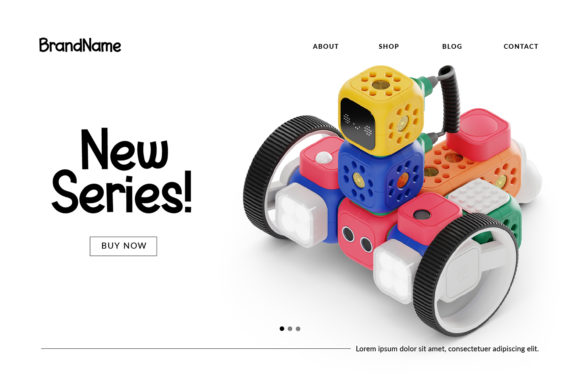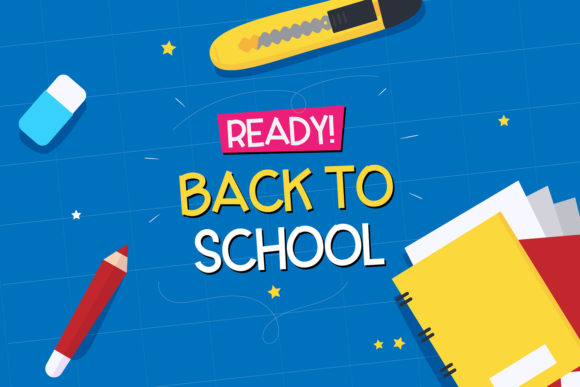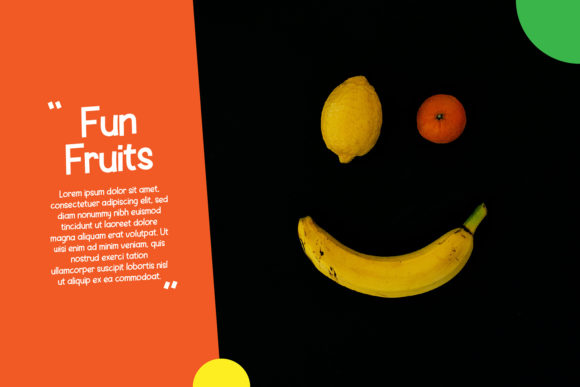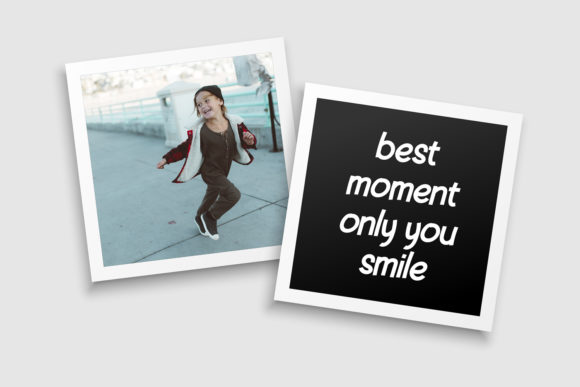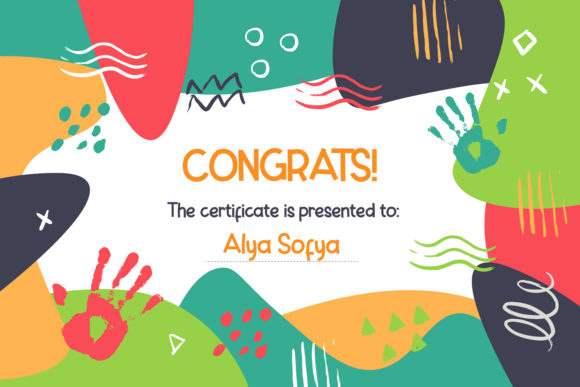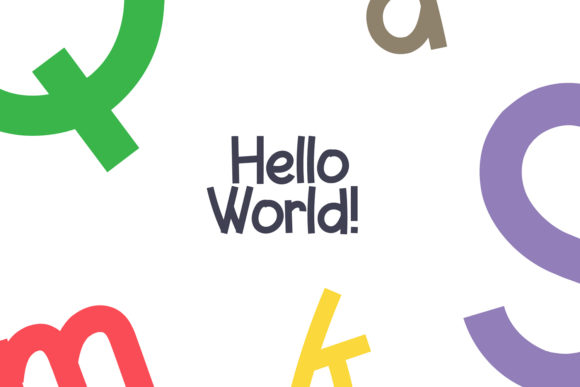
Introducing Happy Single Font: Elevate Your Designs with a Unique Display Font
Are you tired of using the same old fonts for your designs? Look no further! Happy Single Font is here to revolutionize your creative projects with its incredibly stylish and unique display font. This gorgeous font is perfect for designers and crafters who want to add a touch of elegance and sophistication to their work.
What Makes Happy Single Font Special?
Happy Single Font is a one-of-a-kind display font that boasts an interesting and distinctive look. Its stylish appearance is sure to capture the attention of your audience and leave a lasting impression. Whether you’re working on a logo, quote, invitation, business card, or PowerPoint presentation, Happy Single Font is the perfect choice.
With Happy Single Font, the design possibilities are endless! Here are some ideas to get you started:
- Logos: Create a memorable brand identity with a custom logo that showcases your business’s personality and style.
- Quotes: Add a touch of elegance to your inspirational quotes and make them stand out on social media or your website.
- Invitations: Make your special events unforgettable with beautifully designed invitations that feature Happy Single Font.
- Business Cards: Elevate your professional image with stylish business cards that showcase your brand’s unique personality.
- PowerPoint Presentations: Add a touch of sophistication to your presentations and engage your audience with Happy Single Font.
Why Choose Happy Single Font?
Here are just a few reasons why Happy Single Font stands out from the rest:
- Unique and Exclusive: Happy Single Font is a one-of-a-kind font that will set your designs apart from the crowd.
- High-Quality: This font is designed with high-quality craftsmanship, ensuring that it looks stunning in any design.
- Timeless: This font’s classic design ensures that it will remain stylish and relevant for years to come.
Tips for Using Happy Single Font
Here are some tips to help you get the most out of Happy Single Font:
- Experiment with Colors: Try pairing Happy Single Font with different colors to create unique and eye-catching designs.
- Play with Sizes: Experiment with different font sizes to add emphasis and create visual hierarchy in your designs.
- Mix and Match: Combine Happy Single Font with other fonts to create interesting and dynamic designs.
Happy Single Font is a game-changer for designers and crafters who want to elevate their designs with a unique and stylish display font. With its incredibly stylish look and endless design possibilities, this font is sure to become a favorite in your creative arsenal. So why wait? Fall in love with Happy Single Font and start creating gorgeous and timeless designs today!
Whether you’re a seasoned designer or a crafty DIY enthusiast, Happy Single Font is the perfect choice for anyone looking to add a touch of elegance and sophistication to their work. So go ahead, get creative, and make your designs shine with Happy Single Font!